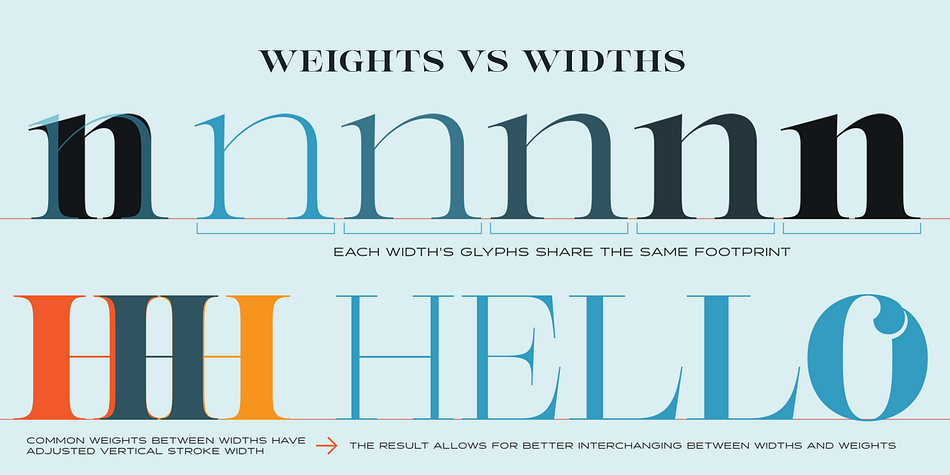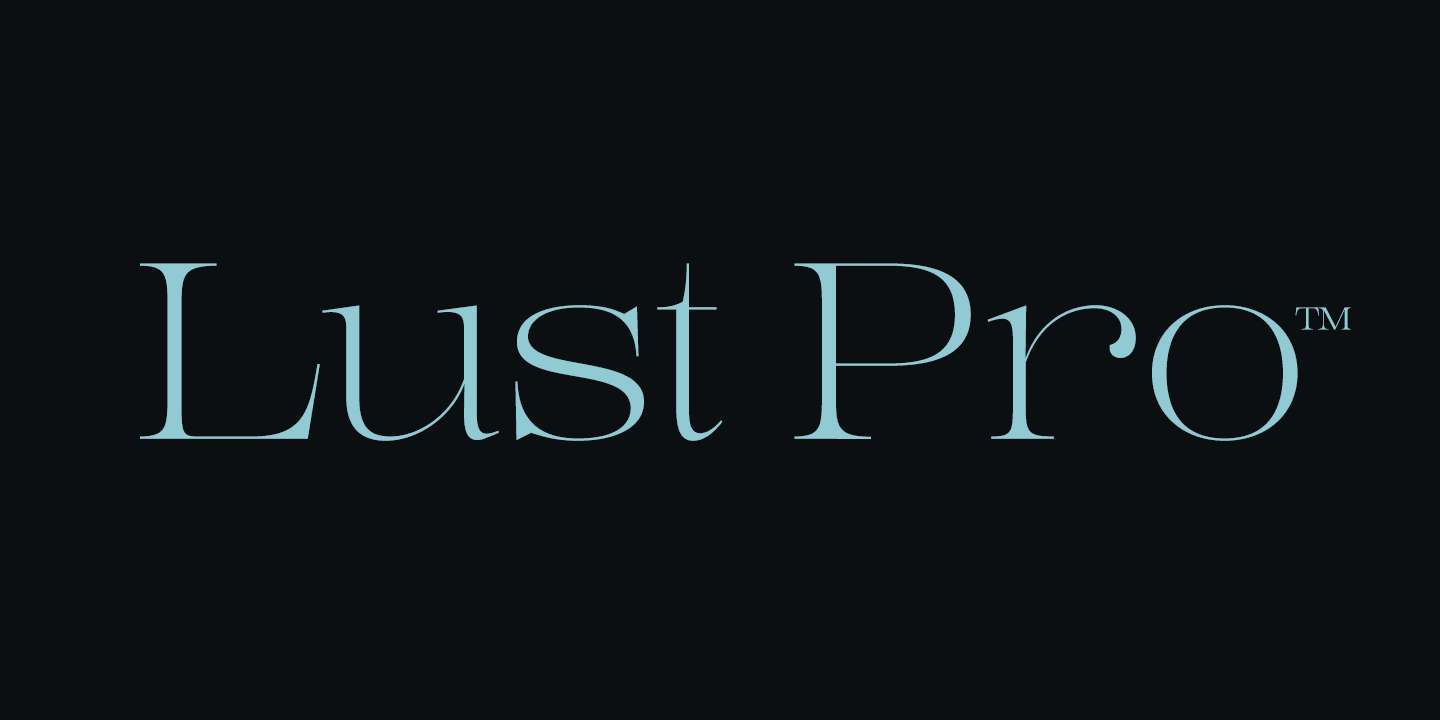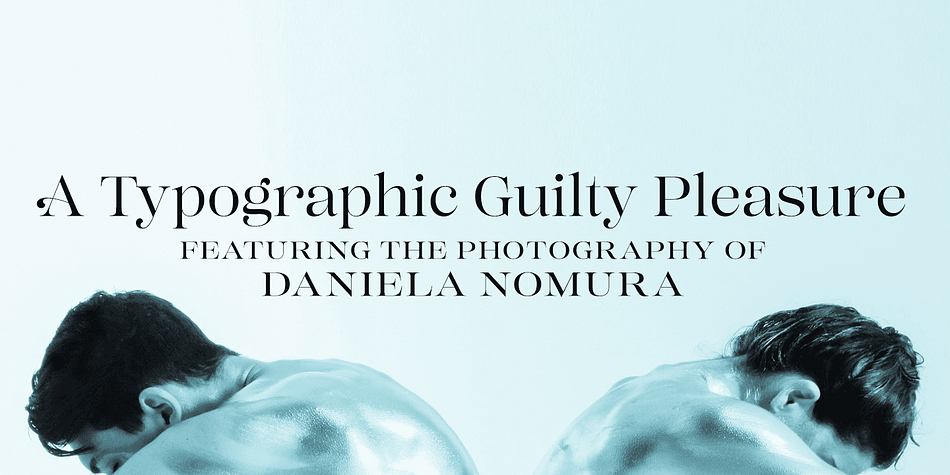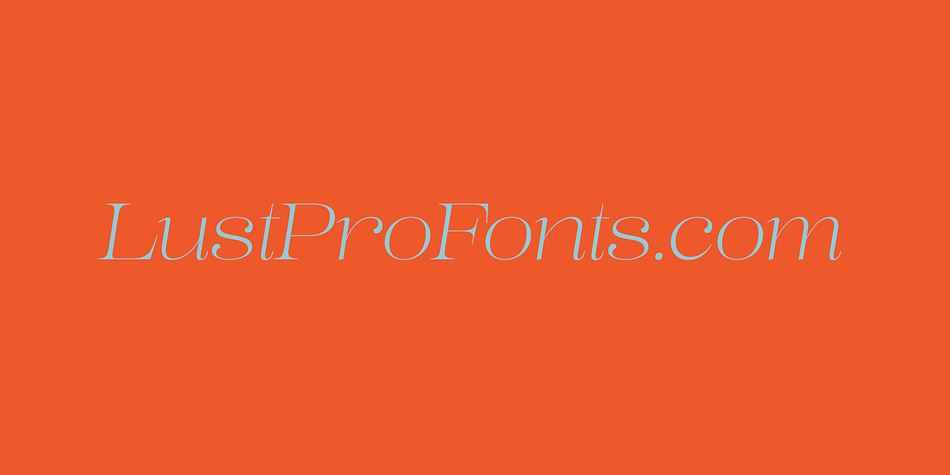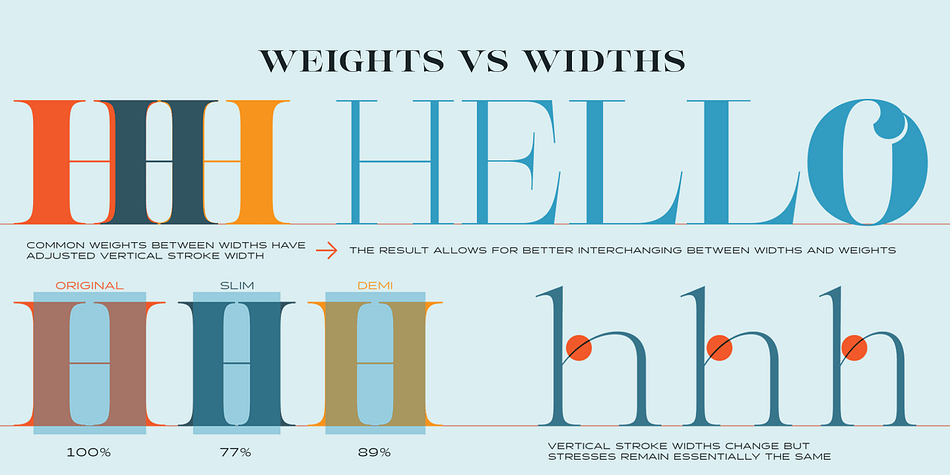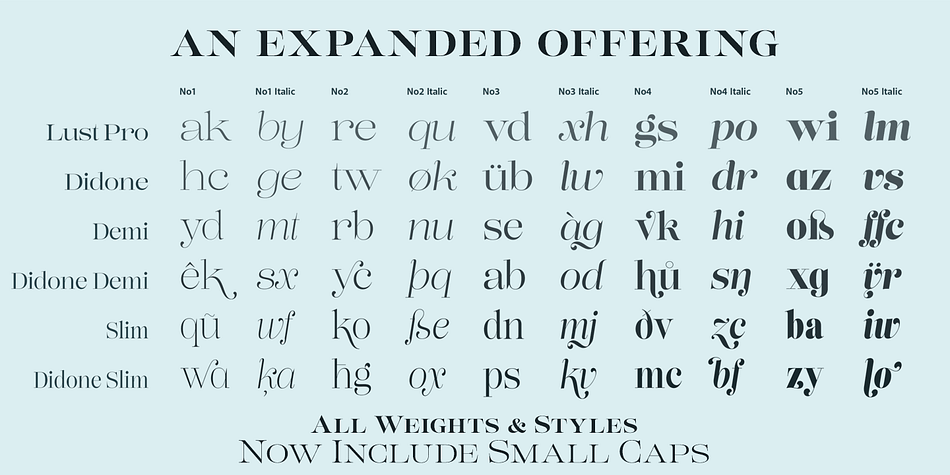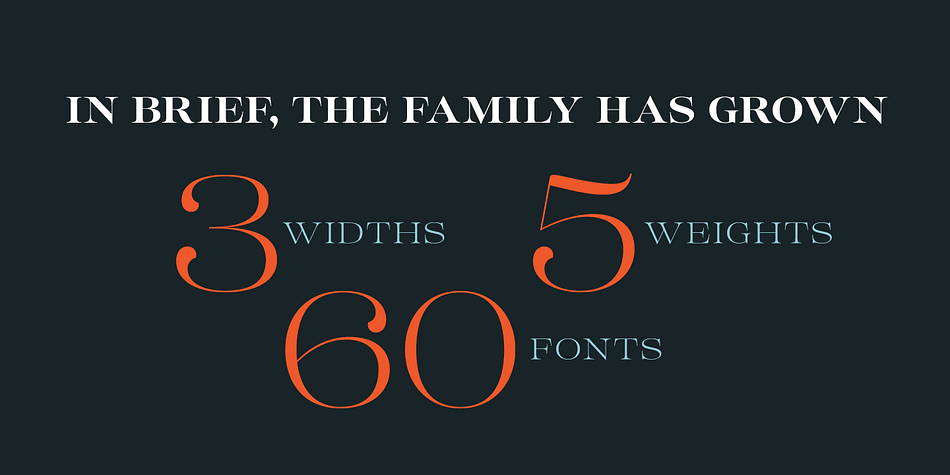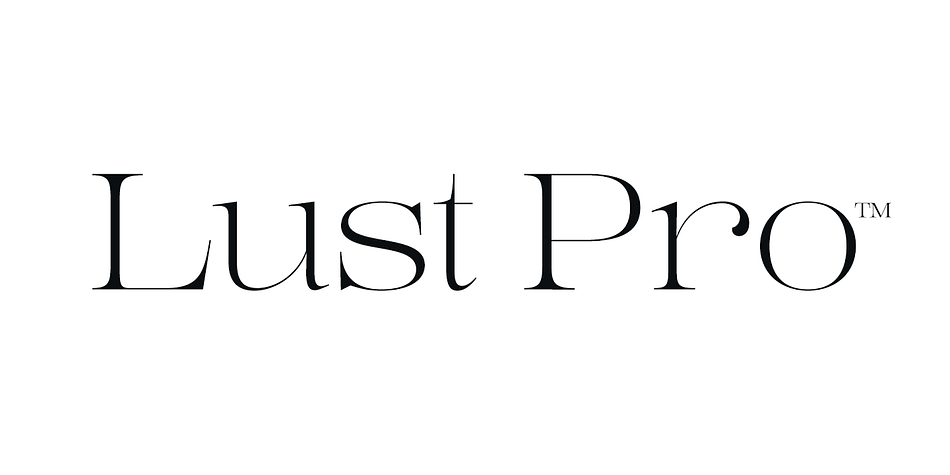
Designed by Neil Summerour, Lust Pro is an art deco and serif font family. This typeface has thirty styles and was published by Positype.
Confident and versatile, Lust Pro™ is an exercise in indulgence—an attempt to create something over the top and vastly useful.
If Lust Pro seems both new and familiar, that’s because it is. The series unapologetically channels Herb Lubalin, but produced with a deliberate, contemporary twist. There is an intentional slyness infused in the letterforms—the extreme thick and thin lines flow effortlessly without becoming gratuitous. It’s always just enough, not too much. What makes the type series so appealing? The curves. When asked to describe the letterforms, most people unwittingly allude to the human form, using adjectives usually reserved for describing physical traits… creating all-too-familiar comparisons. Summerour has grown to accept this as unavoidable and reasonable given his acknowledgement of its influences and has provided nuances within the letterforms to accentuate that.
Intended to be set large, the typeface boasts 3 widths and 5 weights and matching italics for both the Regular and Didone variants (that’s 60 fonts in total), making it perfect for editorial use and a highly flexible solution for any display need.